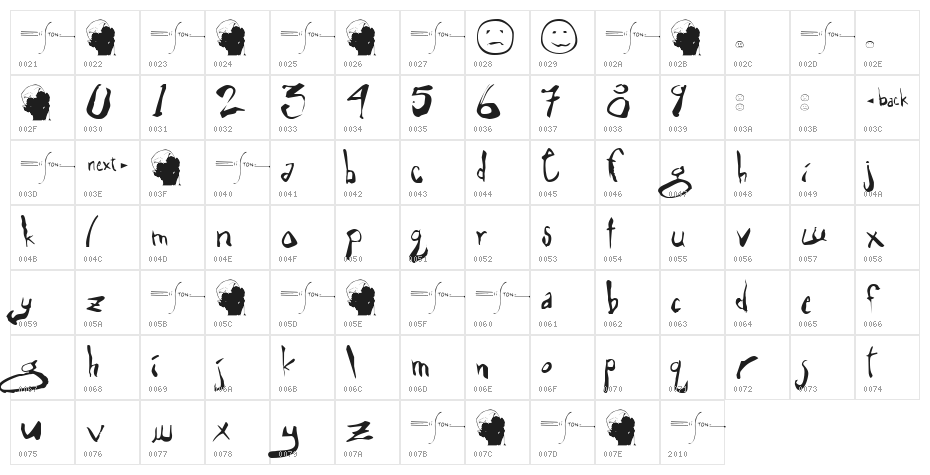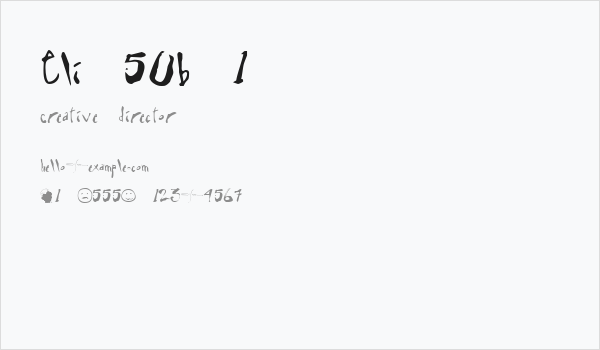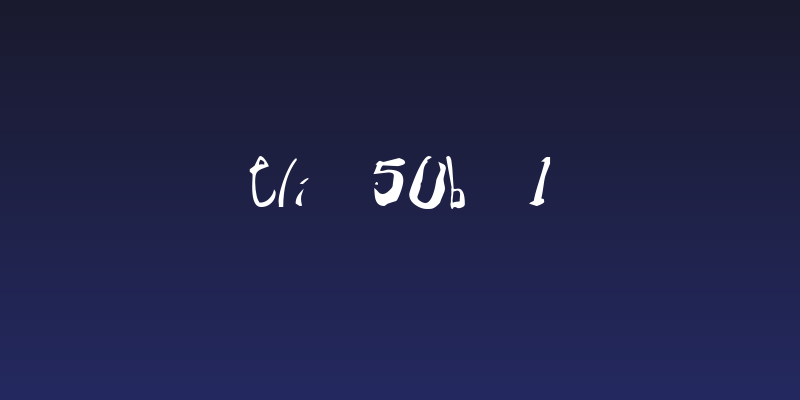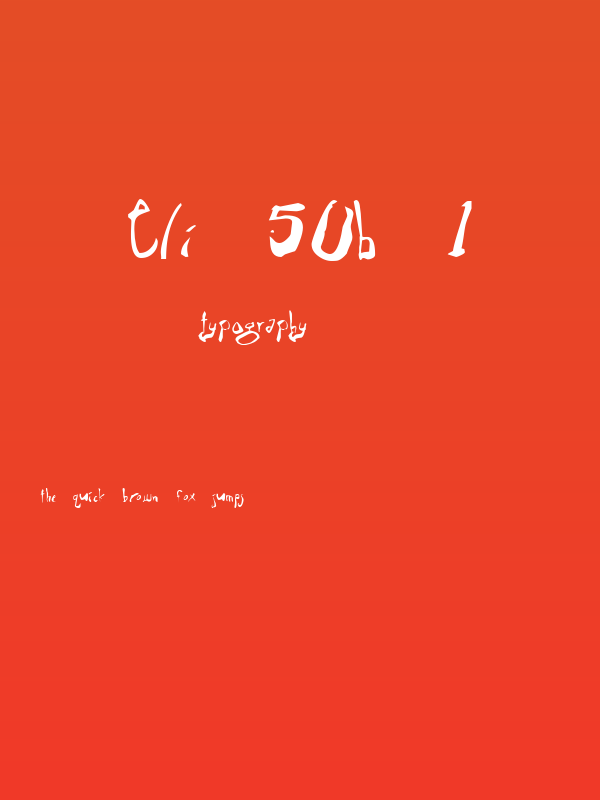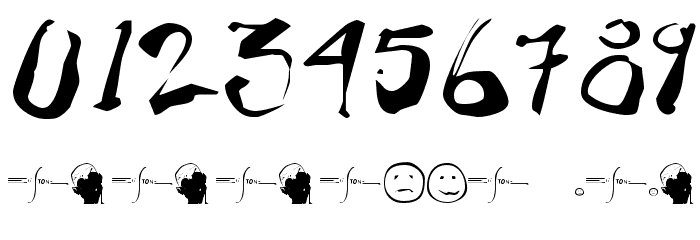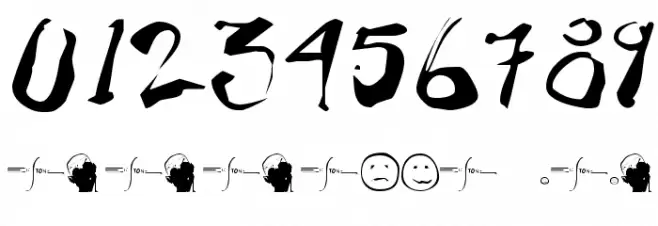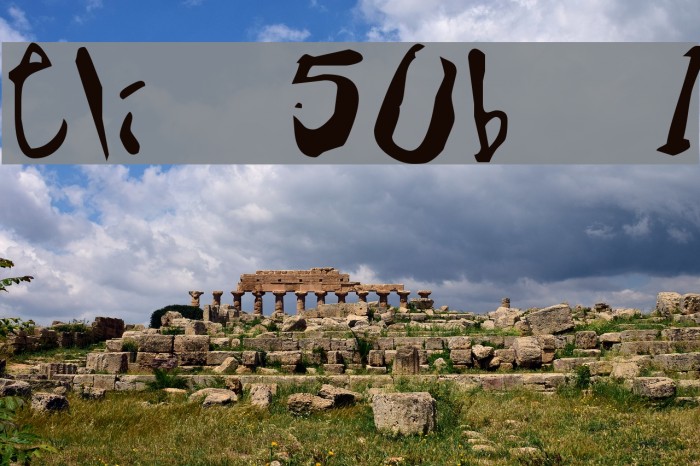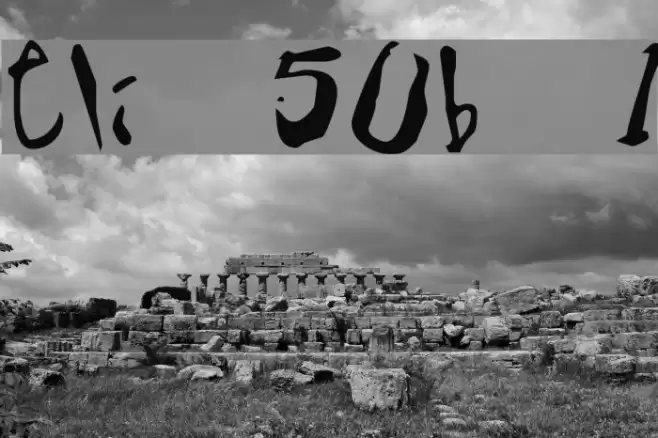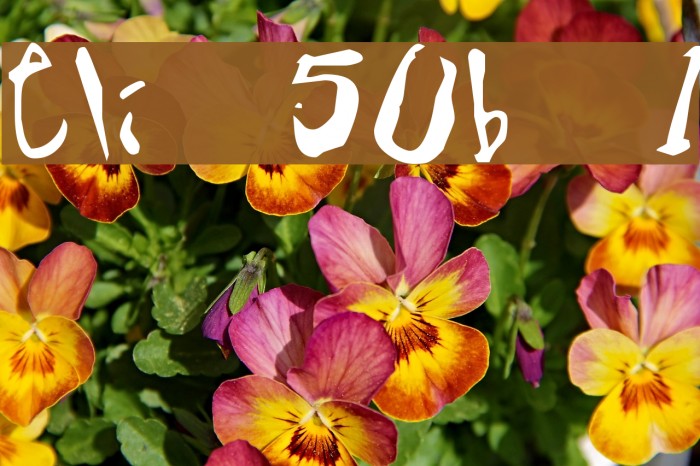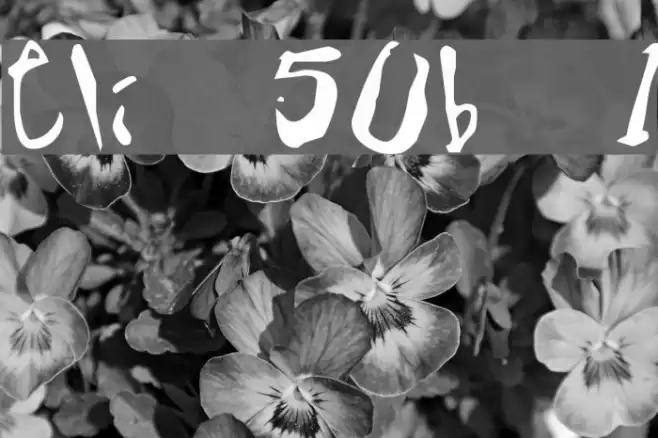
Eli 50b 1 Font
Eli 50b 1 Description
This font features a highly expressive and artistic style, characterized by its bold and dynamic strokes. The letters exhibit a hand-drawn quality, with irregular shapes and varying thicknesses that create a sense of movement and energy. The uppercase and lowercase letters maintain a consistent style, while the numerals and special characters complement the overall aesthetic. The font's unique appearance makes it stand out, offering a creative and unconventional look that is both modern and artistic.
| Overall Style | Artistic |
| Use Case | Logos, Posters, Artistic Branding |
| Proposed Projects | Ideal for creative projects such as posters, album covers, and artistic branding that require a bold and unique visual impact. |